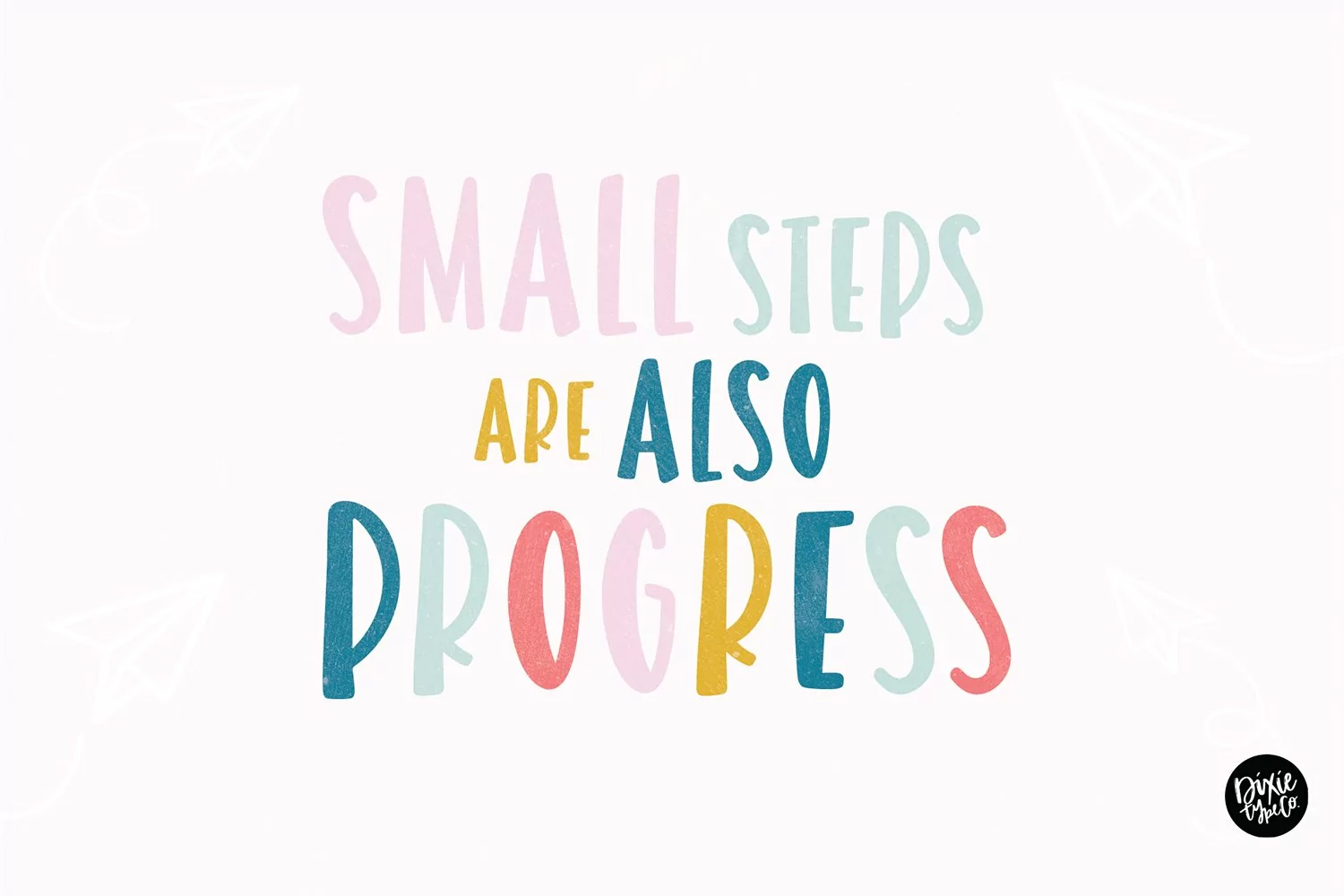
"Paper Airplanes" hand lettered installable font.
{ A typographic font hand lettered with love by Dixie Type Co. }
Paper Airplanes is bold display font. This works great as both display or filler text. Use it for home decor, party invitations, logos, etc.! This is the perfect display font to have on hand.
Font includes: Upper and lowercase glyphs, numbers, and basic punctuation.